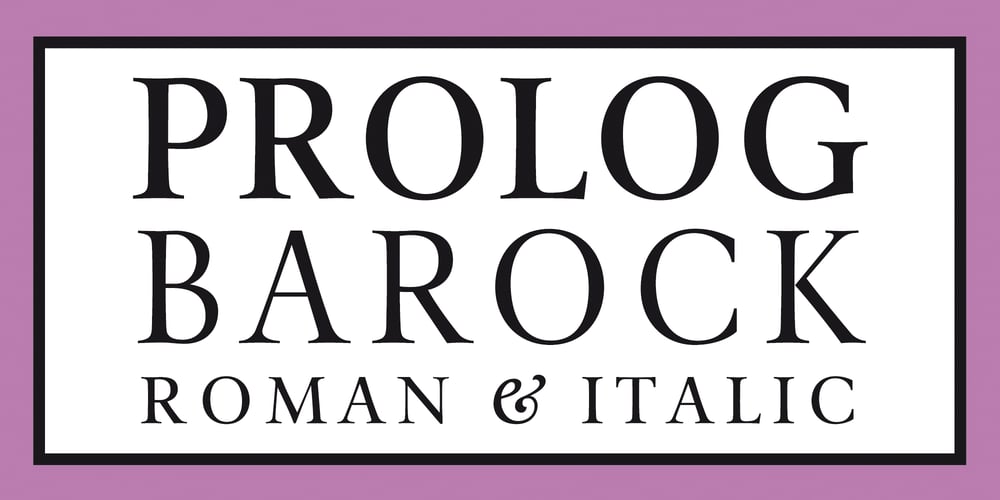
Prolog Barock Font Family was designed by Hellmut G. Bomm and published by HGB fonts. Prolog Barock contains 8 styles and family package options. You are looking for an alternative to the usual text fonts? Here it is: Prolog Barock is part of an extended font family. Based on Giovanni Francesco Cresci’s font patterns from 1570, I have drawn a number of font styles. Following Cresci’s formal principle, the transitional antiqua Prolog Barock was created following a medieval antiqua. Like all Prolog fonts, Prolog Barock has a straight e as well as a slanted (Venetian) e. Additional variants (Table Figures, Old Style Figures and alternatives of Q-P-g-y) are available via OpenType features. Like all Prolog fonts, Prolog Barock is designed for quantity typesetting. The typeface is pleasantly readable in small degrees and yet independent. A good-looking and easy-to-read text font, with some brothers and sisters for appropriate accolades.